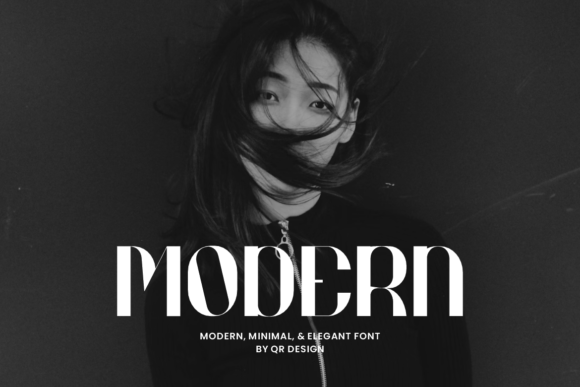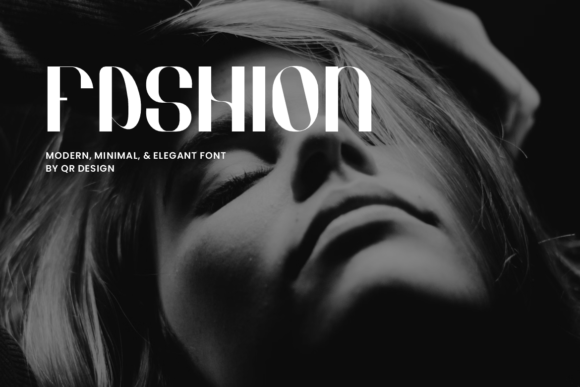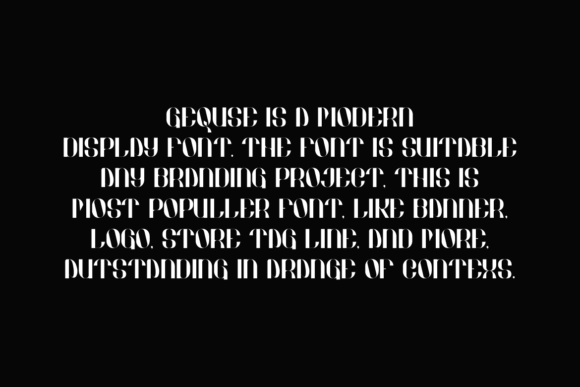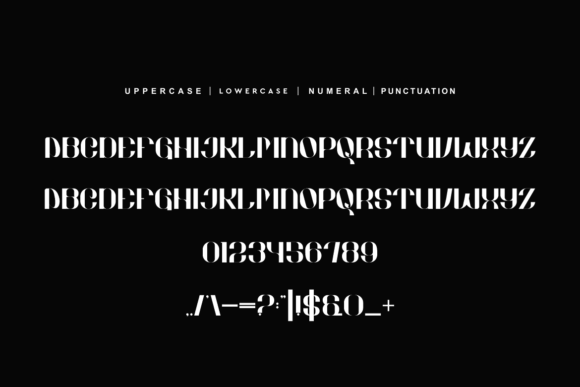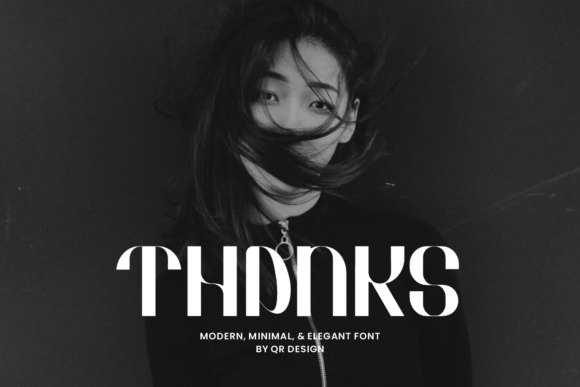
Introduction to Gequse Font
Remember the moment when you finally nailed that perfect design for your client? The rush of excitement, the sense of accomplishment, and the pride in knowing you’ve created something truly special? For designers, moments like these are what make it all worth it. And sometimes, it’s the little details that make all the difference – like the font you choose to elevate your creative project.
That’s where Gequse Font comes in – a gorgeous and bold sans serif font that’s sure to give your headlines and logotype projects a stylish touch. With its strong, confident, and dynamic feel, Gequse Font is a valuable resource for any designer looking to add a high-quality, nostalgic character to their designs.
Whether you’re working on a creative project and need a reliable design resource or simply want to explore new font options for your next free download, Gequse Font is definitely worth checking out – especially with its transparent background making it easy to integrate into any design.
- Unique characteristics include its bold, geometric design and versatility in use, making it suitable for a wide range of creative projects.
Honest Review: Gequse Font
I recently stumbled upon the Gequse Font, a free download that’s been making waves in the design community. As a designer, I was excited to dive in and see what this high-quality font has to offer.
Here are some of the things that work well with the Gequse Font:
- ✨ High level of customization options, making it perfect for creative projects
- ✨ Comes with a transparent background, allowing for seamless integration with any design
- ✨ Stylish and modern aesthetic that’s sure to elevate any design
While the Gequse Font is a valuable design resource, there are a few limitations to consider:
- ⚠️ Limited font styles available (although this may change as the font continues to evolve)
- ⚠️ Some users may find the font too bold or overpowering for certain design applications
Overall, I’m impressed with the Gequse Font and think it’s a great addition to any designer’s toolkit. With its high-quality design and transparent background, it’s perfect for a wide range of creative projects. Just be aware of the potential limitations and use it judiciously.
Gequse Font is ideal for use in various creative projects, including graphic design, digital art, and typography. Its high-quality design and transparent background make it a versatile resource for designers and artists.
To get the most out of Gequse Font, experiment with different font sizes, colors, and combinations to create unique and visually appealing designs. You can also use the font in conjunction with other design elements, such as images and shapes, to create a cohesive and high-quality design resource.